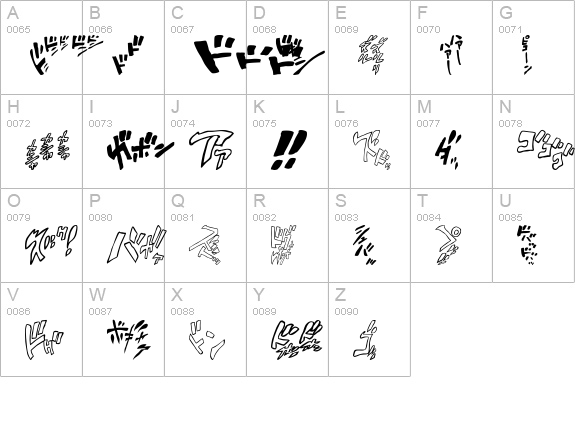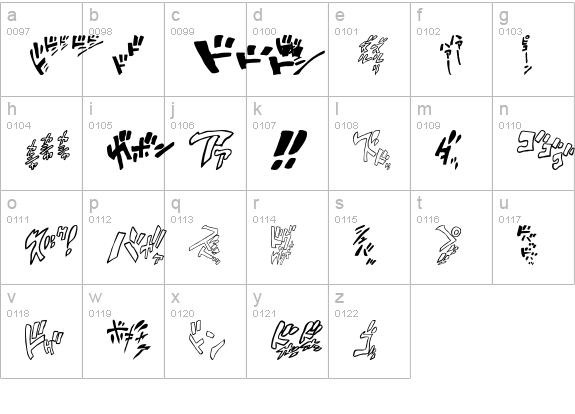
I2Jojomix Font Details
Introducing the sensational I2Jojomix font, a true masterpiece that combines elegance, versatility, and modernity in one remarkable typeface. This font is meticulously crafted to elevate your designs to new heights and leave a lasting impression on your audience. With its sleek and stylish letterforms, I2Jojomix adds a touch of sophistication to any project. Whether you're designing a logo, creating eye-catching headlines, or crafting visually stunning graphics, this font is the perfect choice to make your work stand out from the crowd. What sets I2Jojomix apart is not only its impeccable design but also its incredible versatility. It effortlessly adapts to various design styles, from minimalist and contemporary to bold and playful. This font allows you to unleash your creativity and experiment with different looks, ensuring that your designs are always unique and captivating. And the best part? I2Jojomix is absolutely free! Yes, you read that right. This extraordinary font is freely available to download at FontsMarket.com, the go-to platform for high-quality and diverse font selections. Now, you can enhance your designs with this exceptional font without breaking the bank. So why wait? Elevate your design game with I2Jojomix and watch your creations come to life with a touch of elegance and modernity. Download this font today and unlock a world of possibilities for your design projects.